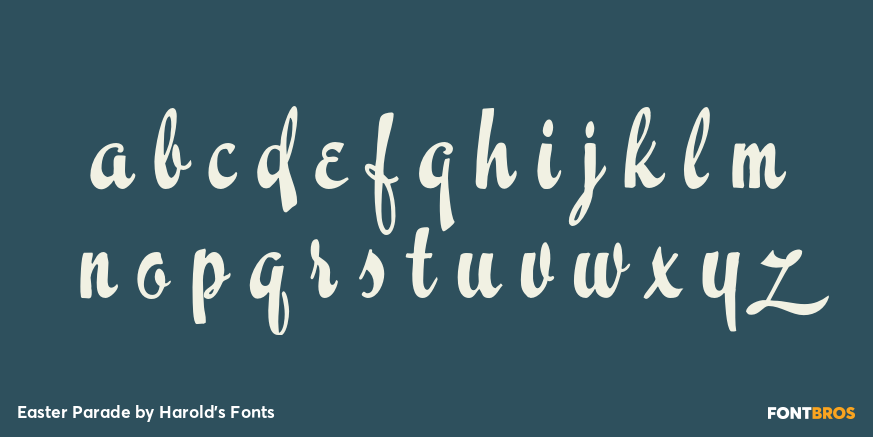
Easter Parade
Font Family by Harold's Fonts
EASTER PARADE is a retro vertical script, very stylish with a bold stroke and some crazy swashes. It was inspired by a sample of hand-lettering called simply "Modern Brush Script" in Alphabets: Ancient & Modern, compiled by J. B. Russell, 1945.
Version 2.0 has improved with refined edges, an expanded character set, and better connections between letters to better resemble continuous cursive, using alternate characters and ligatures.